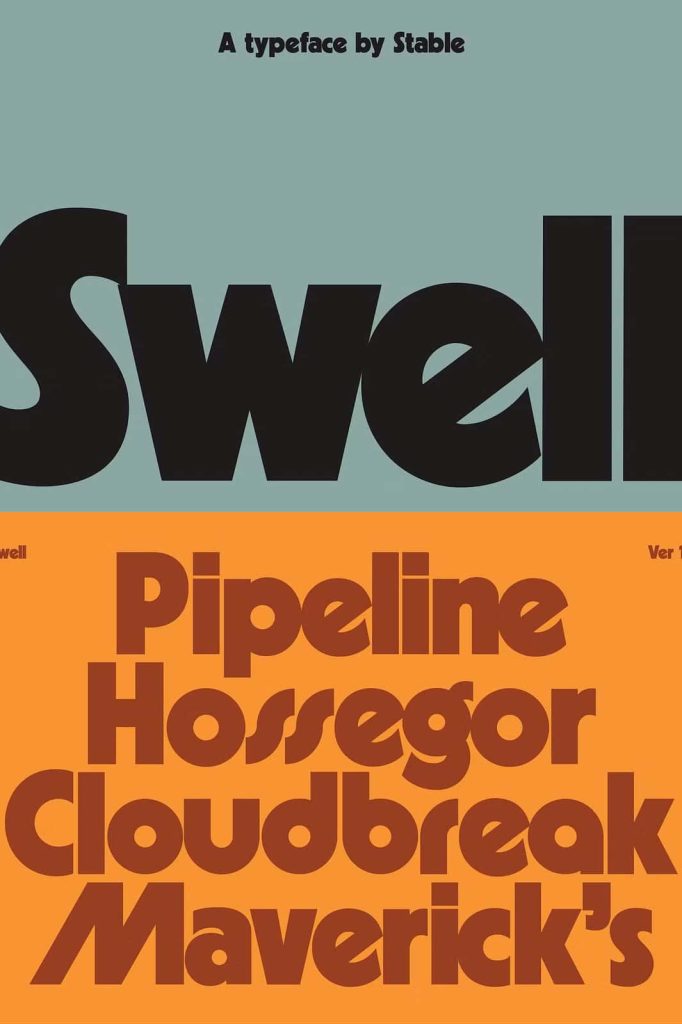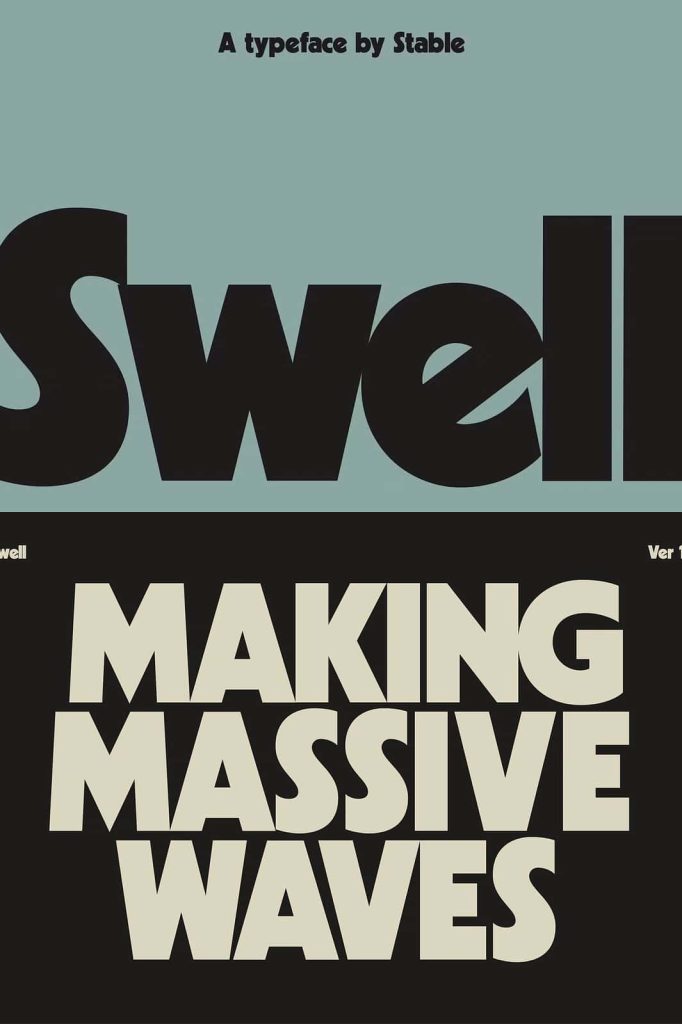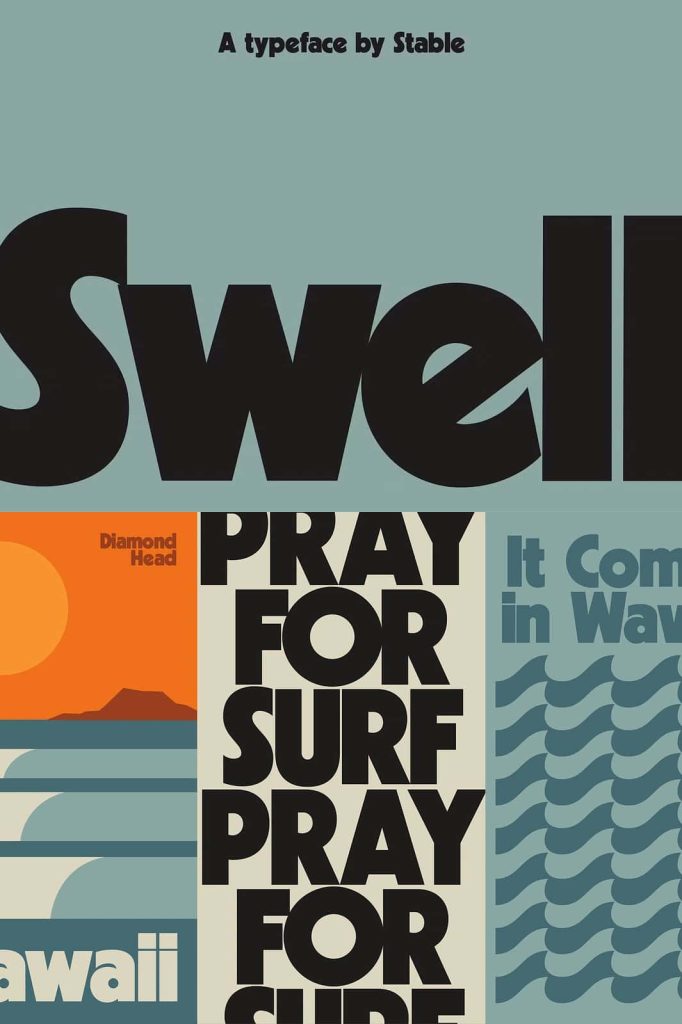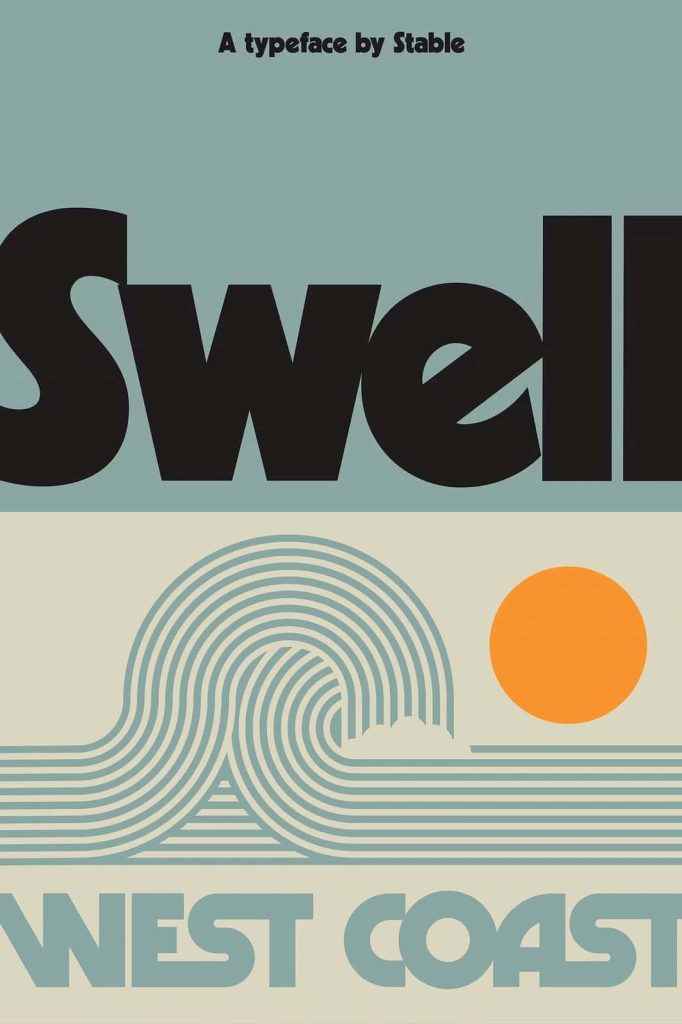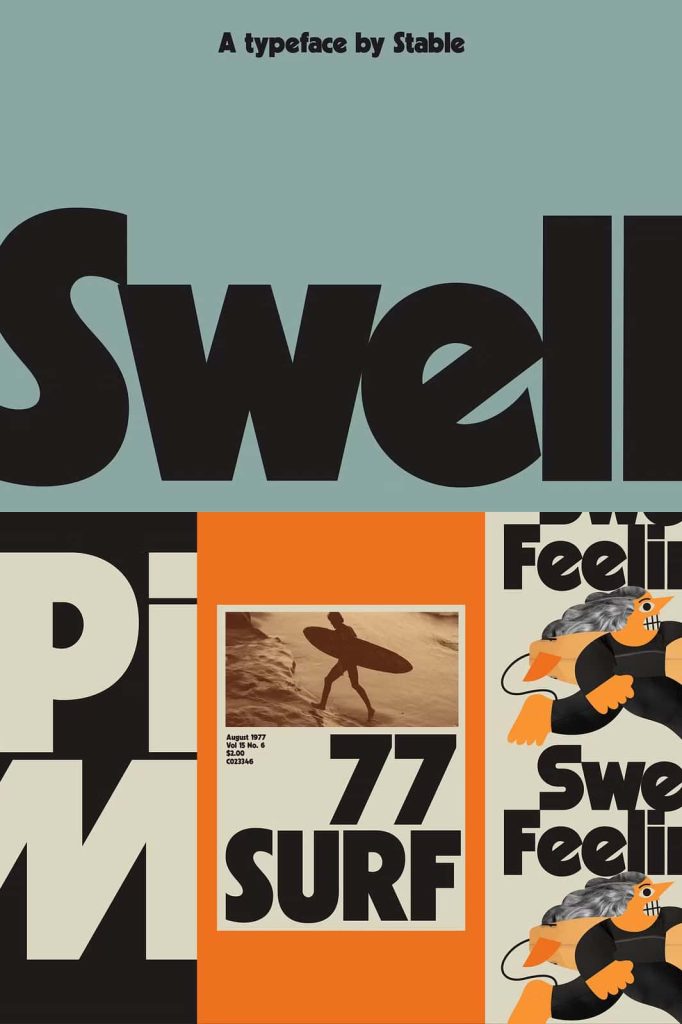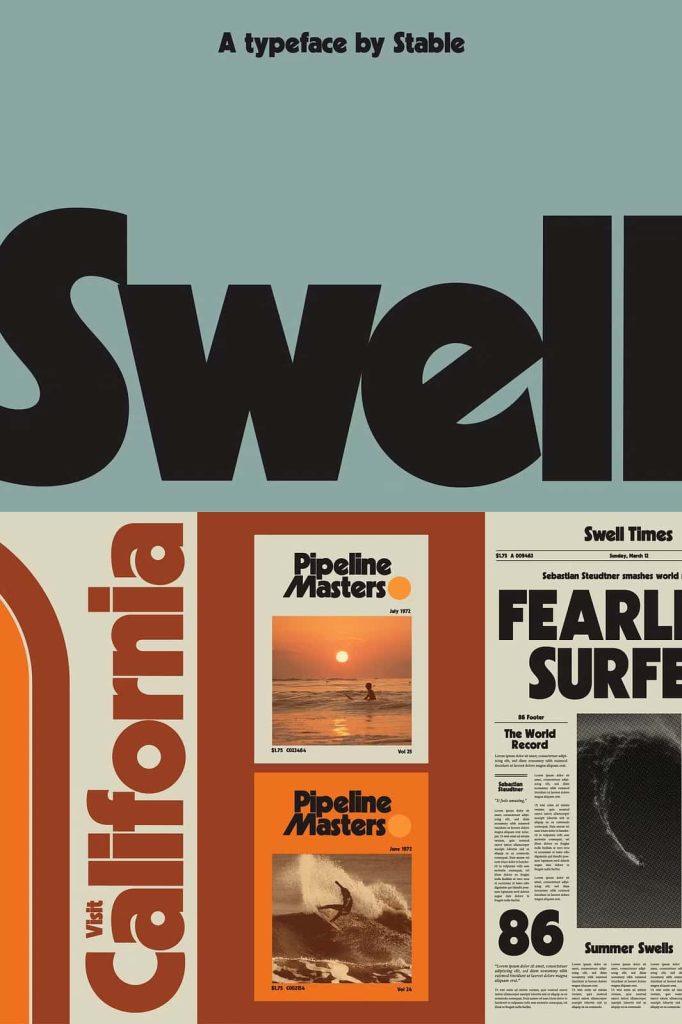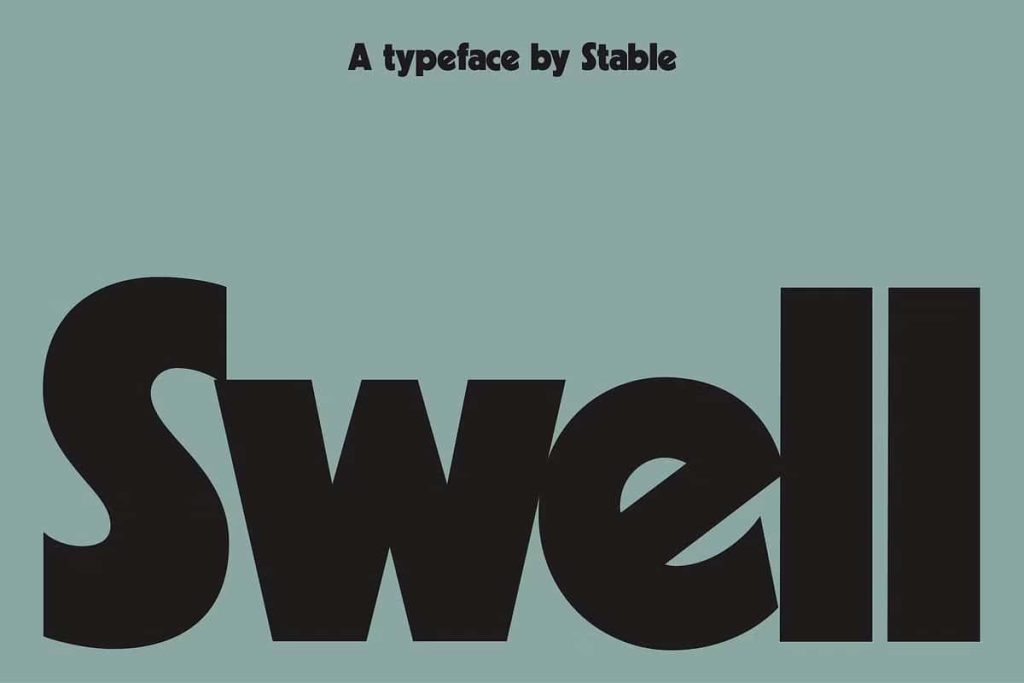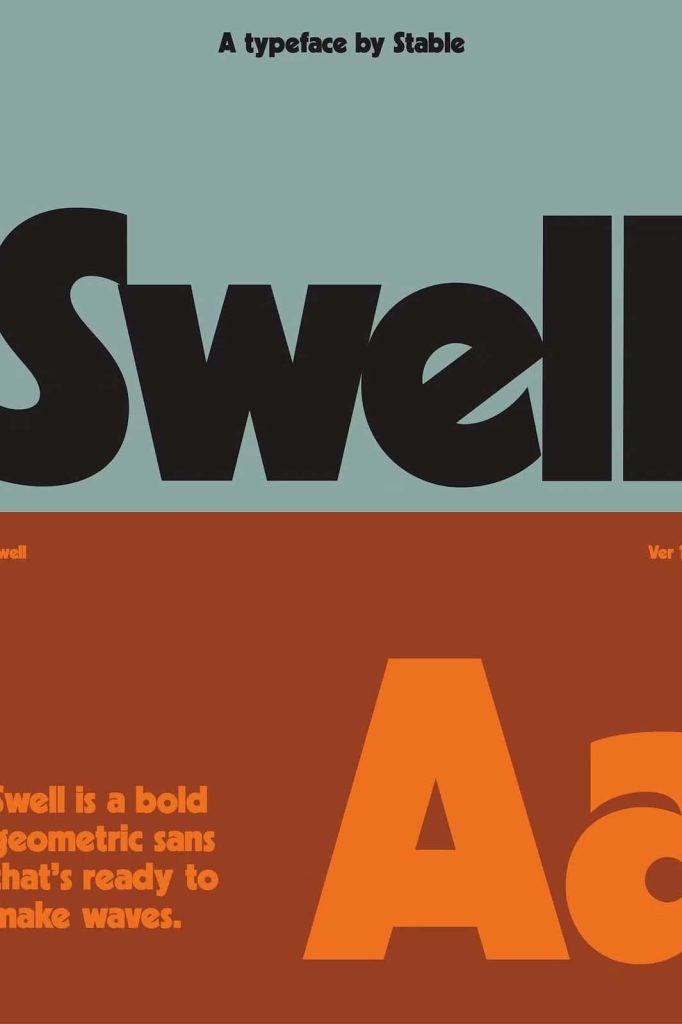
Swell Typeface: A Bold Geometric Sans Inspired by Classic Design
Swell is a modern reinterpretation of the timeless geometric sans serif style, drawing strong inspiration from iconic typefaces like Kabel Black. This font brings a fresh and energetic perspective to classic typography by combining bold structure with playful retro influences. Designers can use Swell to create eye-catching visuals that feel both nostalgic and contemporary.
With its confident shapes and clean geometry, Swell delivers strong visual impact while maintaining clarity and readability. It offers a versatile solution for designers who want to channel vintage inspiration without sacrificing modern design standards.
A Fresh Take on a Timeless Classic
Swell builds upon the legacy of geometric sans serif typography by refining and expanding its core elements. It captures the essence of Kabel Black while introducing updated proportions and stylistic features that enhance usability and creativity.
Instead of simply replicating the past, Swell transforms classic influences into a new visual language. It feels familiar yet distinctive, making it an excellent choice for designers who want to stand out while referencing established design traditions.
Bold Geometry That Commands Attention
The defining feature of Swell lies in its strong geometric construction. Each letterform uses clean lines and balanced shapes to create a cohesive and impactful appearance. This structure allows the font to perform exceptionally well in high-visibility applications.
Confident Letterforms for Strong Visual Presence
Swell uses bold strokes and precise curves to establish a commanding presence. Designers can rely on this strength to create headlines and logos that immediately capture attention.
Clean Structure for Modern Clarity
Despite its boldness, the font maintains a clean and organized structure. This balance ensures readability while preserving its striking personality, making it suitable for both print and digital environments.
Extensive Character Set for Creative Flexibility
Swell includes a comprehensive set of characters designed to support a wide range of design needs. It provides uppercase, lowercase, numbers, and punctuation, ensuring consistency across different types of content.
Over 50 Alternative Glyphs
One of the most exciting features of Swell is its collection of over 50 alternative glyphs. These alternates allow designers to customize their typography and create unique visual identities. By swapping characters, you can introduce subtle variations or bold stylistic changes.
Inspired by Iconic Retro Typefaces
The alternate glyphs draw inspiration from classic fonts such as Avant Garde, Marvin, and Blippo. These influences add depth and variety to the typeface, giving designers more tools to experiment and innovate.
Perfect for Retro and Contemporary Projects
Swell adapts seamlessly to a wide range of design applications. Its bold geometric style makes it particularly effective for projects that require strong visual impact and personality.
- Branding and logo design
- Posters and promotional materials
- Packaging with retro or modern themes
- Social media graphics
- Website headlines and digital content
By adjusting layout, spacing, and color, designers can shift the tone from playful and nostalgic to sleek and modern. This flexibility ensures that Swell remains relevant across different industries and creative directions.
Designed for Expression and Energy
Swell encourages designers to experiment and push creative boundaries. Its bold shapes and alternative glyphs provide endless opportunities for customization, allowing each project to feel unique and engaging.
Pair it with minimalist sans serif fonts for contrast, or combine it with vibrant colors and textures to enhance its retro personality. The font performs equally well in large-scale designs and detailed compositions, making it a reliable choice for diverse creative needs.
Why Choose Swell Typeface?
Swell offers a powerful combination of classic inspiration and modern functionality. Designers choose it for its ability to deliver both style and versatility in one cohesive package.
- Bold geometric design inspired by Kabel Black
- Clean and readable structure
- Extensive character set including alternates
- Retro influences with modern refinement
- Flexible use across multiple design applications
This combination makes Swell an essential addition to any designer’s toolkit, especially for projects that demand strong visual identity and creative freedom.
Conclusion
Swell reimagines classic geometric sans serif typography with a bold and modern twist. Its strong structure, rich set of alternative glyphs, and retro-inspired character make it a versatile and expressive typeface. Whether you are designing for print or digital platforms, Swell provides the tools to create impactful, memorable, and visually engaging designs.